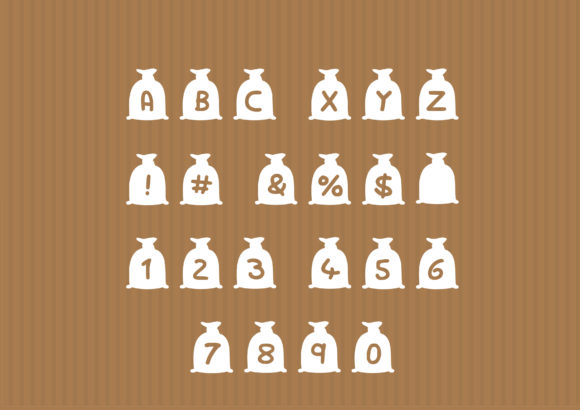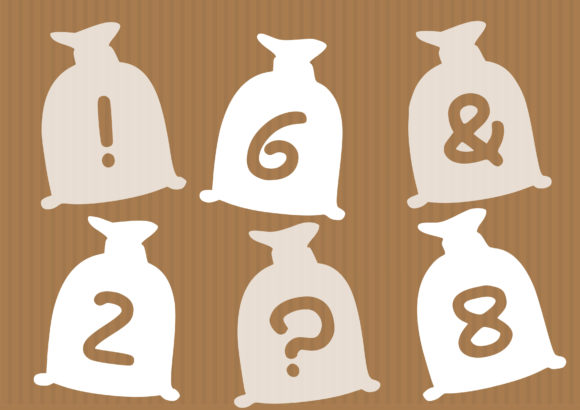
Introduction to Play Bag Font
As designers, we’ve all been there – stuck on a creative project, desperate for that one thing that will take it from ordinary to extraordinary. The right font can make all the difference, and that’s where the Play Bag Font comes in – a game-changing addition to any design resource library.
This high-quality font is more than just a pretty face; its unique, bag-adorned characters offer endless possibilities for creative expression. Whether you’re working on a project that requires a touch of whimsy or a dash of sophistication, the Play Bag Font is sure to deliver. With its transparent background and free download availability, it’s the perfect addition to any designer’s toolkit.
Key Features of Play Bag Font
- Unique, hand-drawn design with transparent background for versatility
- Perfect for use in branding, packaging, and advertising designs
- Includes a wide range of characters, including uppercase and lowercase letters, numbers, and punctuation marks
Honest Review: Play Bag Font
- Unique and playful style that’s perfect for creative projects
- High-quality design with crisp lines and smooth curves
- Transparent background makes it easy to use on any background
- Comes in a range of weights and styles to suit different design needs
While the Play Bag Font is a great resource, there are a few limitations to consider:
- Not suitable for formal or professional designs
- May not be ideal for small text sizes
Overall, I’m impressed with the Play Bag Font. It’s a fun and creative resource that can add a touch of personality to any design. If you’re looking for a unique font to spice up your creative project, I’d definitely recommend giving it a try.
How to Use Play Bag Font
The Play Bag Font is a versatile, high-quality design resource perfect for creative projects. Its modern and playful design makes it ideal for various applications, from digital to print media.
- PowerPoint/Word: Use the font to create presentations and documents that stand out with its unique and modern style.
Tips for Getting the Most Out of Play Bag Font
To maximize the effectiveness of the Play Bag Font, experiment with different font sizes, colors, and combinations. You can also use it in conjunction with other design elements, such as icons and graphics.
The Play Bag Font is suitable for a wide range of applications, including:
- Print media and advertising
Alternatives to Play Bag Font
Fontin is a high-quality, sans-serif font suitable for creative projects that require a clean and modern design. It features a transparent background, making it ideal for use on transparent backgrounds or as a design resource for graphic designers.
Fontin is a more elegant alternative to Play Bag Font, offering a more refined look. It’s best used for titles, headings, and body text in creative projects, such as magazine covers, advertisements, and websites.
Comparison to Play Bag Font: While Play Bag Font is more playful and casual, Fontin is more sophisticated and professional. Fontin is a better choice for projects that require a more refined and modern design.
Amatic SC
Amatic SC is a high-quality, sans-serif font suitable for creative projects that require a friendly and approachable design. It features a transparent background, making it ideal for use on transparent backgrounds or as a design resource for graphic designers.
Amatic SC is a more casual alternative to Play Bag Font, offering a more relaxed and approachable look. It’s best used for titles, headings, and body text in creative projects, such as blog posts, social media graphics, and websites.